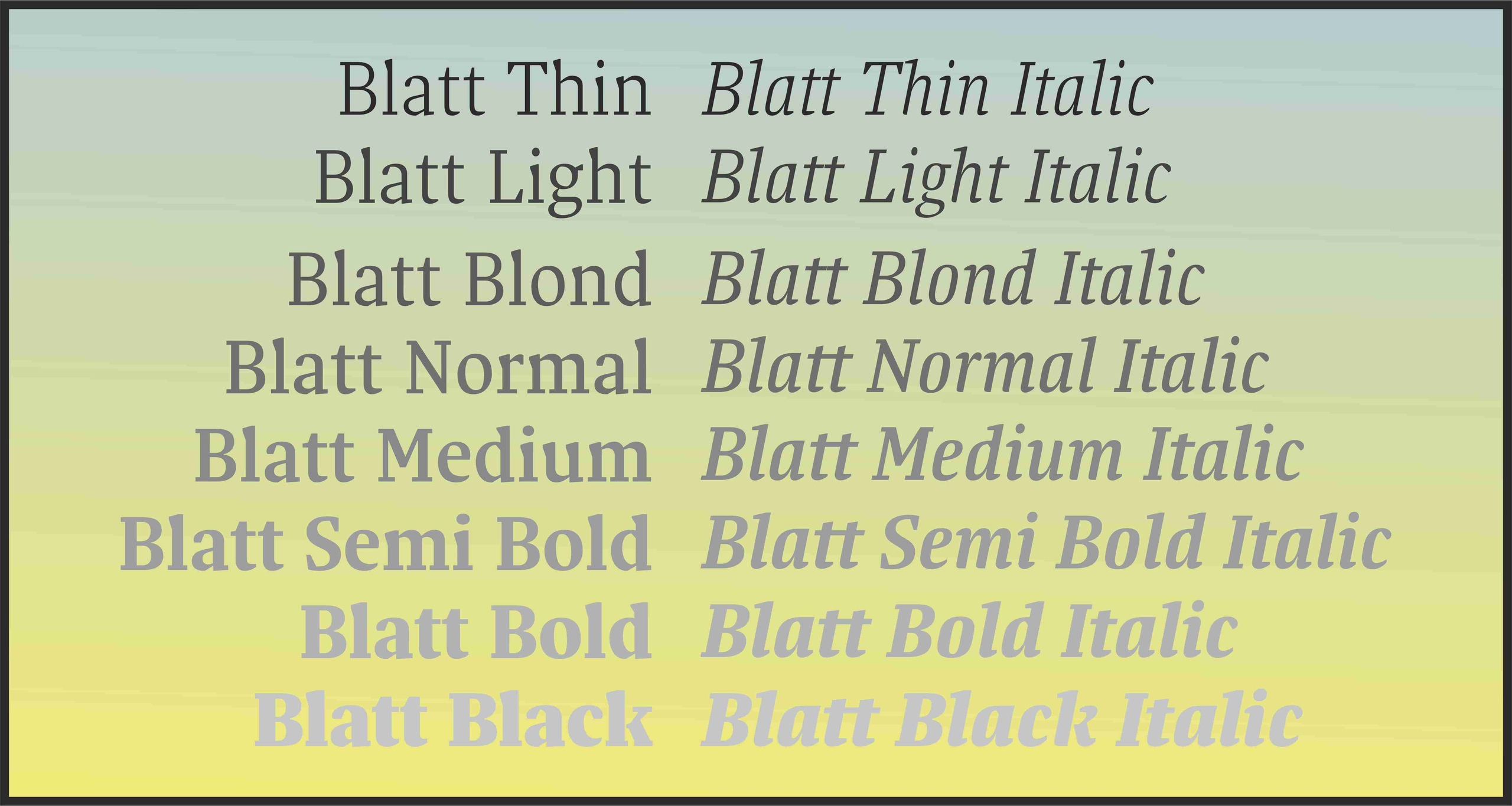
Blatt Font
Blatt Font is perfect for newspaper headlines, editorial magazine layouts, journalistic publications, press release materials, news website headers, media company branding, investigative reporting documents, breaking news graphics, publication mastheads, and contemporary journalism applications.
What makes Blatt Font so exciting is its exceptional ability to deliver information with journalistic authority and editorial impact through letterforms specifically engineered for maximum readability and news credibility. This professional typeface embodies the essence of modern journalism and editorial excellence with characters that seem to carry the weight of important information while maintaining the crisp clarity demanded by contemporary news consumption across all media platforms. The font's authoritative design elements perfectly balance editorial credibility with reader accessibility, creating an indispensable tool that communicates journalistic integrity, news authority, and information reliability, making it essential for news organizations and media brands committed to delivering trustworthy information with professional presentation and editorial excellence.
Blatt Font comes in multiple font families including Regular, Bold, Light, Italic, Bold Italic, Headline, Editorial, and News variations. Each family member maintains the core journalistic characteristics while offering different impact levels and stylistic approaches to suit various news and editorial design requirements.
The editorial precision in Blatt Font makes it particularly effective for news organizations and media companies where conveying information quickly and accurately while maintaining reader trust and engagement is crucial for audience retention and journalistic credibility. Its optimized letterforms work exceptionally well across all news media applications, from traditional print newspapers to digital news platforms, maintaining consistent editorial impact and professional news presentation.
Media industry professionals recognize how Blatt Font transforms ordinary news content into authoritative information delivery that builds reader confidence and editorial credibility in competitive news markets. The typeface's comprehensive character set includes extensive punctuation support, news symbols, and international language features that accommodate complex editorial requirements and global news publishing standards.
For creative professionals serving news organizations, media companies, and editorial publications, Blatt Font serves as the ultimate foundation for creating memorable news experiences that capture the essential qualities of journalistic integrity, editorial excellence, and information authority that define successful news brands in competitive media landscapes where credibility and clear communication determine reader trust and long-term success.